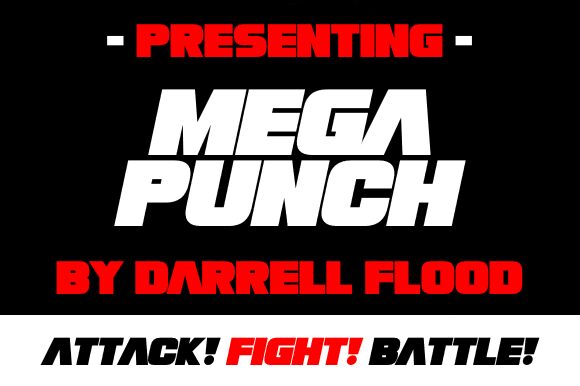
Megapunch Italic
Mega Punch Italic is a powerful sans serif font that packs a punch with its extra-bold weight and semi-expanded width. Designed by Hawtpixel, this font family is perfect for projects that require a bold and impactful look. With its italic style, it adds a touch of sophistication and elegance to any design. Use Mega Punch Italic for branding, logos, headlines, posters, or anything that demands attention. Its versatility allows it to shine in both digital and print media, making it an essential addition to any designer's toolbox. Give your designs the knockout they deserve with Mega Punch Italic!